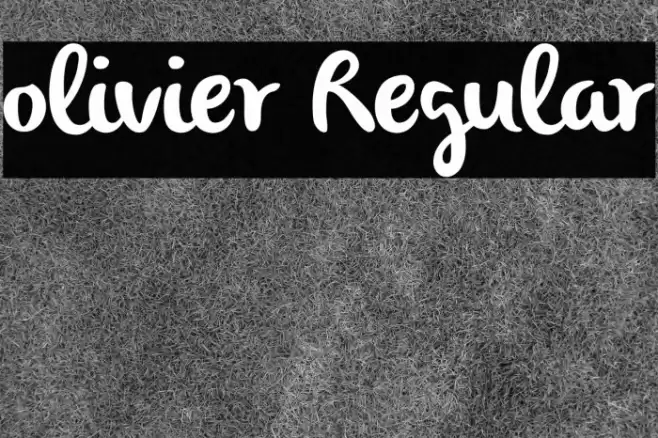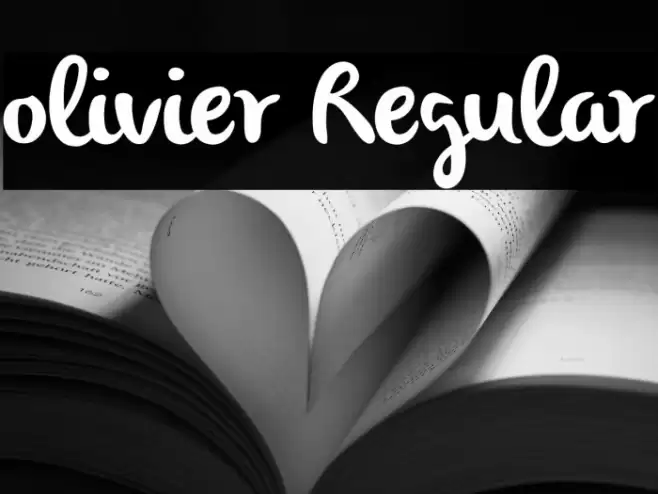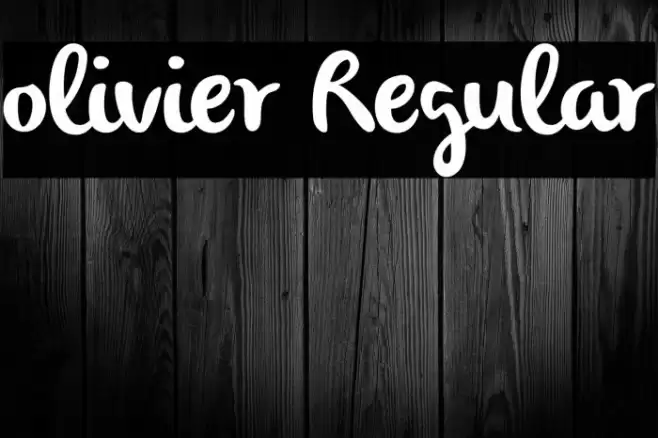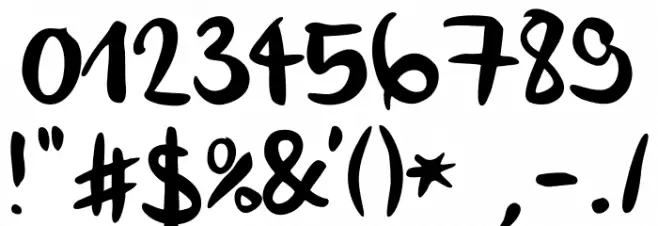
olivier Regular Font
olivier Regular Description
This font features a playful and energetic handwritten style, characterized by its bold and fluid strokes. The uppercase letters are slightly larger and more pronounced, while the lowercase letters maintain a consistent flow, creating a harmonious balance. The numbers are rounded and maintain the same lively aesthetic, making them easily legible. Special characters are integrated seamlessly, adding to the font's versatility. The overall appearance is casual yet impactful, making it suitable for a variety of creative applications.
A bold, playful handwritten font with fluid strokes and a lively aesthetic from Regular fonts.
- Proposed Projects: Ideal for greeting cards, playful branding, children's books, and creative social media graphics.
- Overall Style: Playful
- Use Case: Logos, Headlines, Creative projects